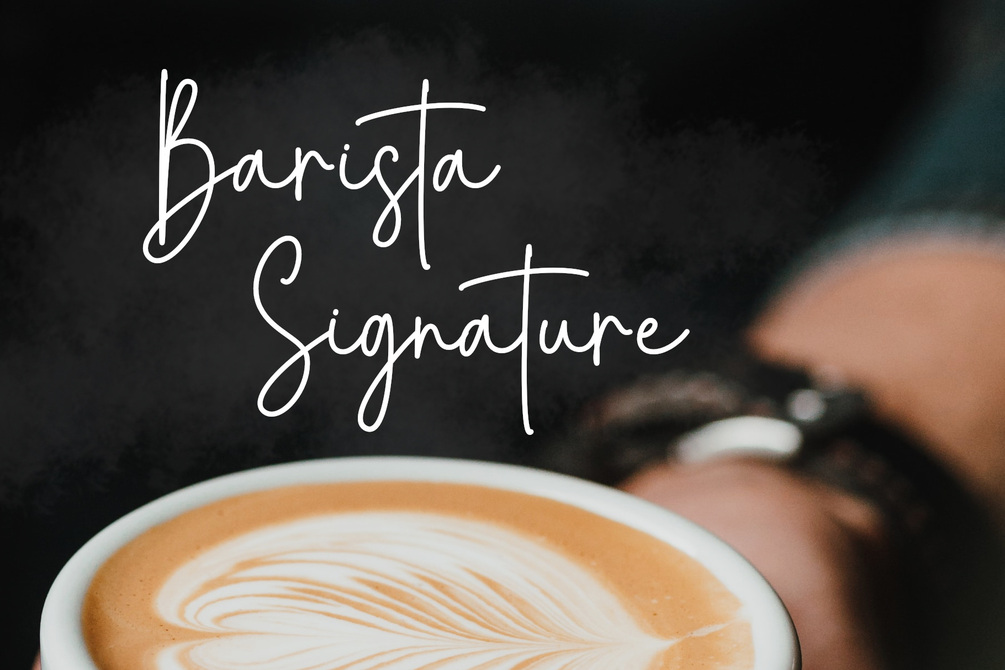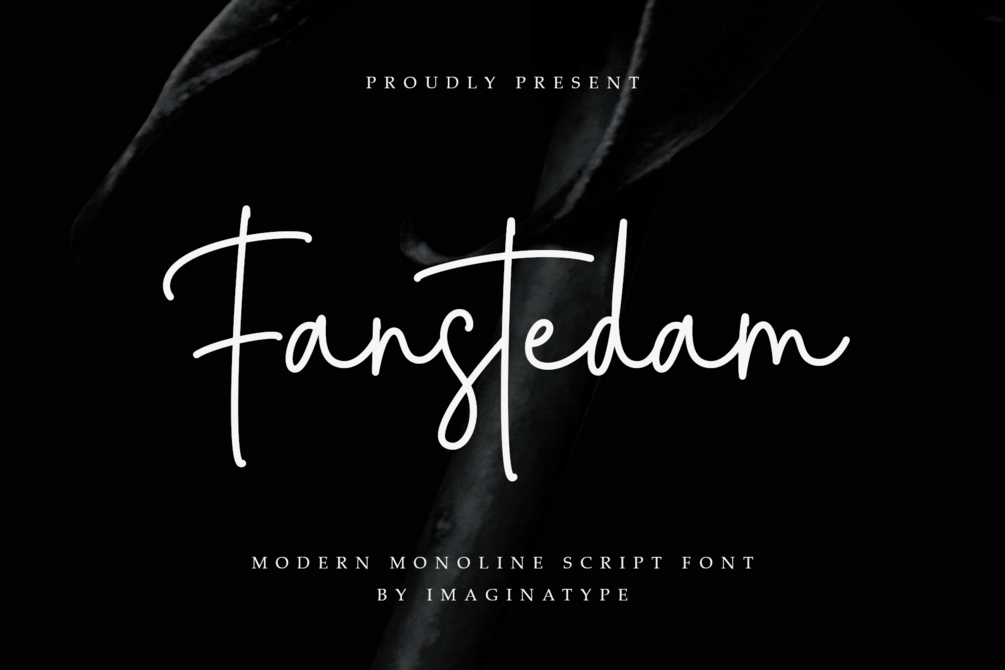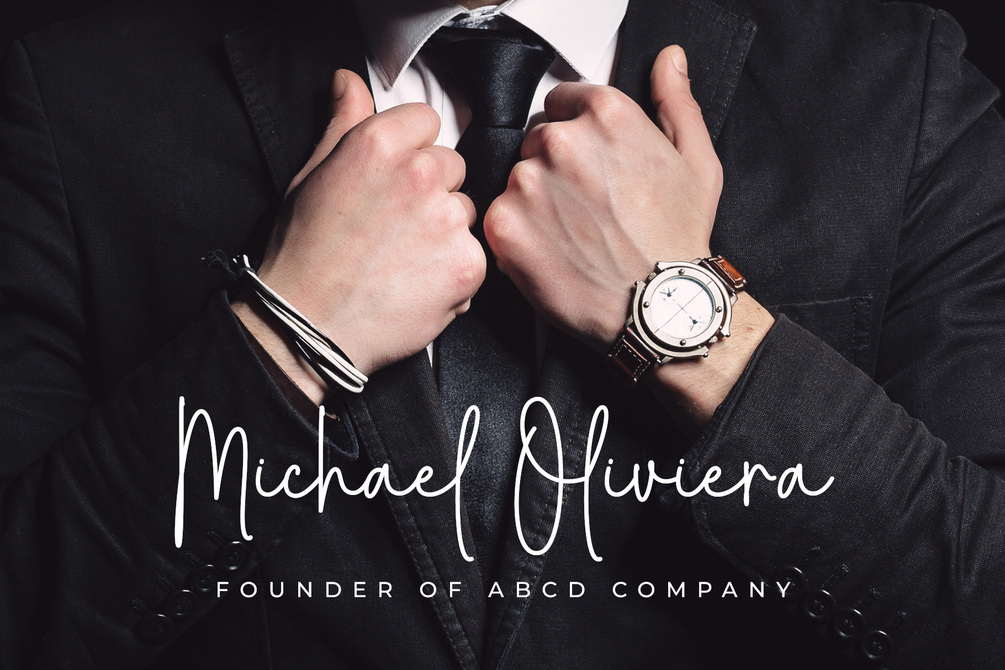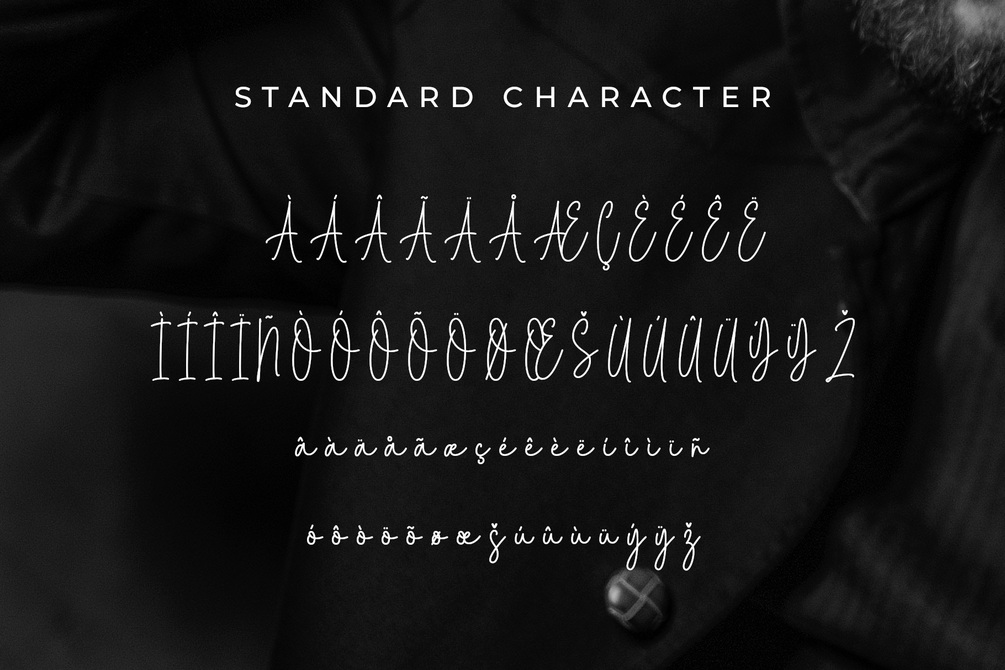
Fanstedam Signature Script
Introducing Fanstedam Signature Script, a sleek and modern monoline handwritten font. It's perfect for wedding invitations, logo designs, and contemporary branding projects that call for a personal touch.
With its smooth strokes and natural handwritten feel, Fanstedam strikes a balance between professional and approachable. Ideal for visual identities, digital signatures, and stylish social media content.